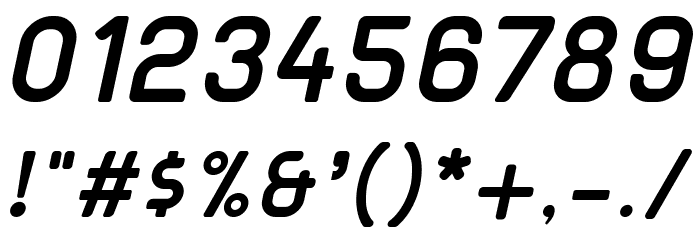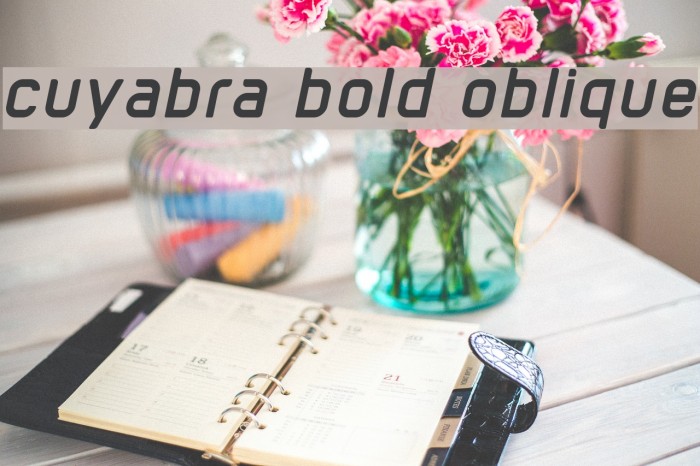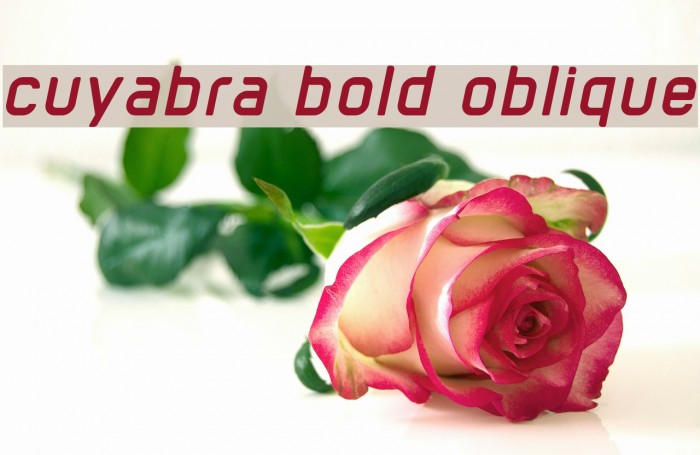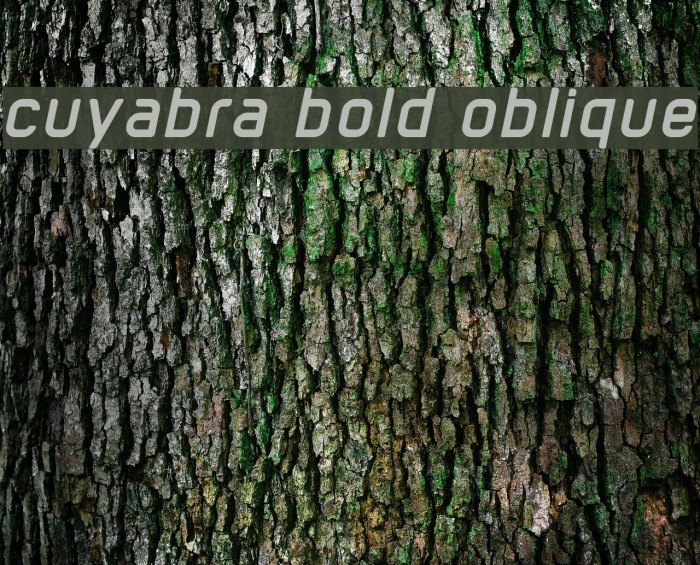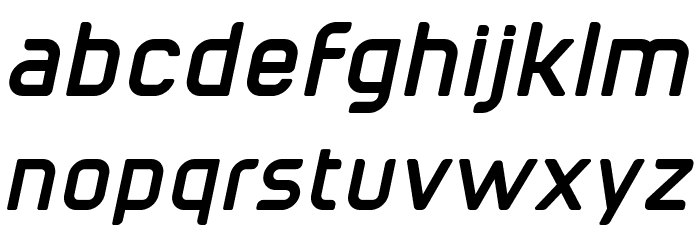
cuyabra bold oblique Font
This font features a bold and oblique style, characterized by its strong, slanted letters that convey a sense of motion and dynamism. The uppercase and lowercase letters maintain a consistent weight, providing a uniform appearance across the board. The numerals are clear and distinct, ensuring readability. Special characters are well-integrated, matching the overall aesthetic. The font's design is modern and sleek, making it suitable for various contemporary applications. Its boldness ensures that it stands out, while the oblique angle adds a touch of elegance and sophistication.
A bold, oblique font with a modern and dynamic style.
• Proposed Projects: Ideal for branding, advertising, headlines, and sports-related designs.
• Category: Sans-Serif
• Bold: Yes
• Italic: Yes
• Weight: Bold
• Width: Normal
• Character Spacing: Normal
• Contrast: Low
• Overall Style: Modern
• Use Case: Headlines, Logos